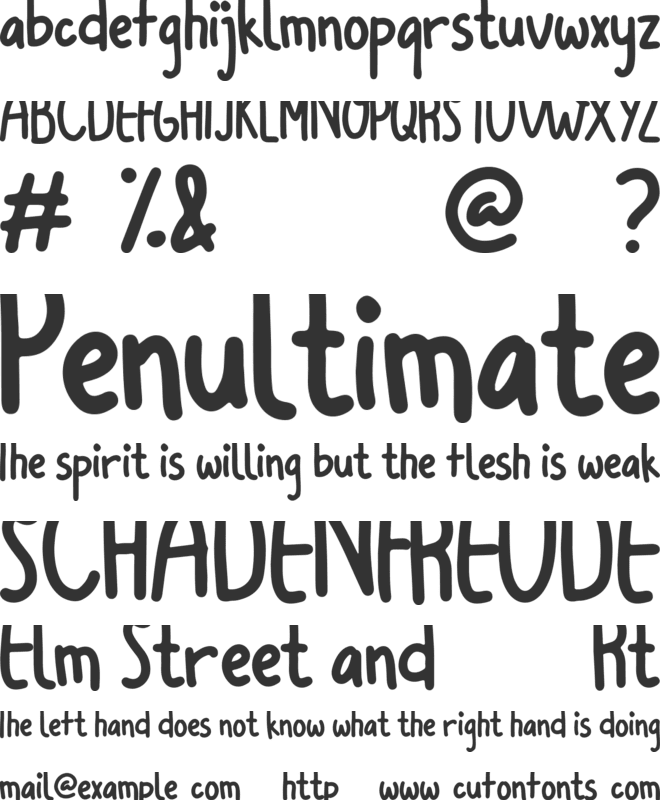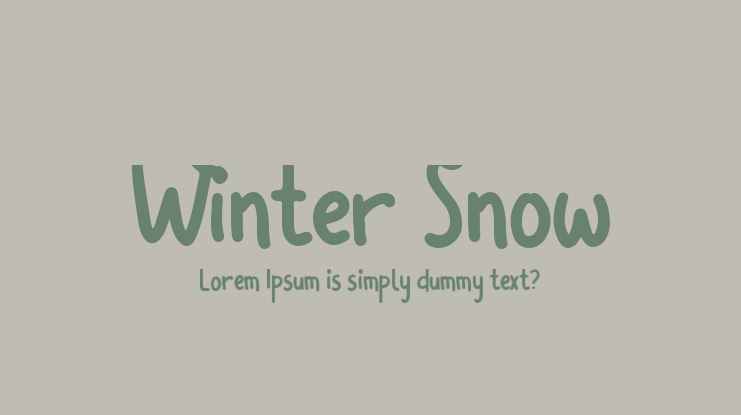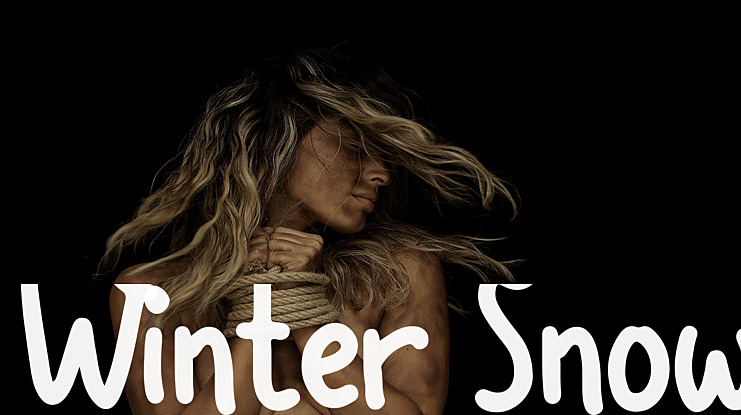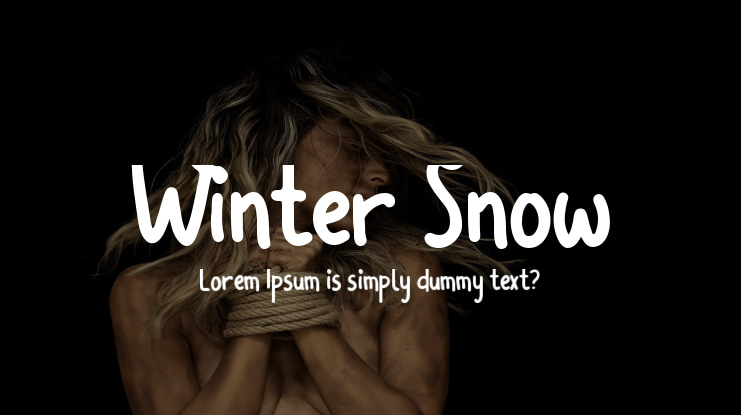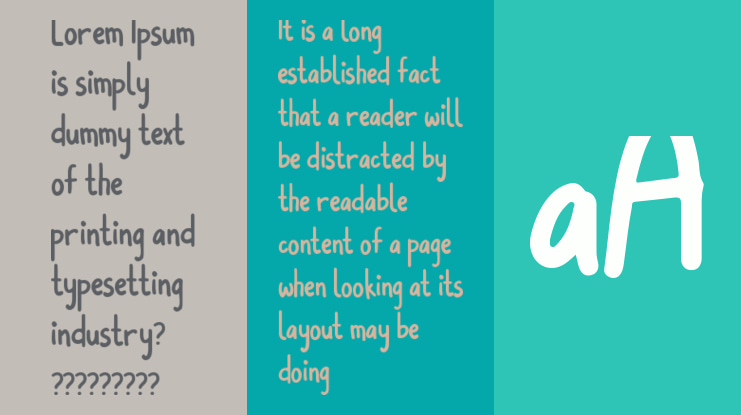
Winter Snow Font
Introducing Winter Snow Typeface. It is designed by wyarecreatype. Winter Snow is the New Year’s font. Inspired by the holiday mood and created for your future wonderful works. Well suited for headlines, short texts, postcards, calendars, magazines, books, and logos. Enjoy! ????